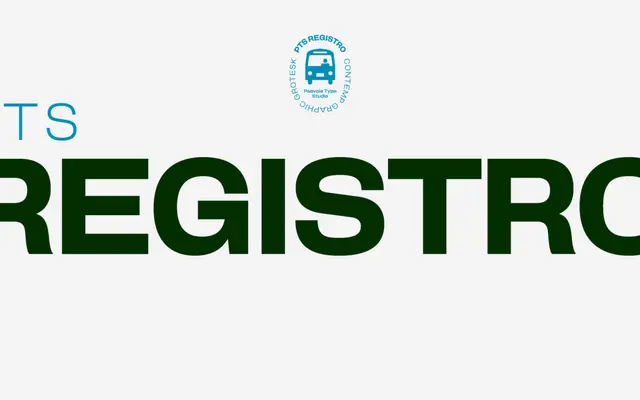
PTS Registro
A contemporary graphic grotesque in seven weights with broad Latin language support and eight stylistic sets offering alternate letterforms for key characters.
Seven weights from ExtraLight to Black, with italics listed as forthcoming. The family covers more than 200 Latin-based languages and includes eight stylistic sets, offering alternates for characters such as the single-storey 'a', double-storey 'g', 't', 'K', 'Q' and 'Z', along with alternate numerals and fractions. Discretionary ligatures and a full suite of OpenType features round out a well-specified package.
Described explicitly as a graphic grotesk, with a wide weight range and alternate characters typical of contemporary grotesque sans-serif design.